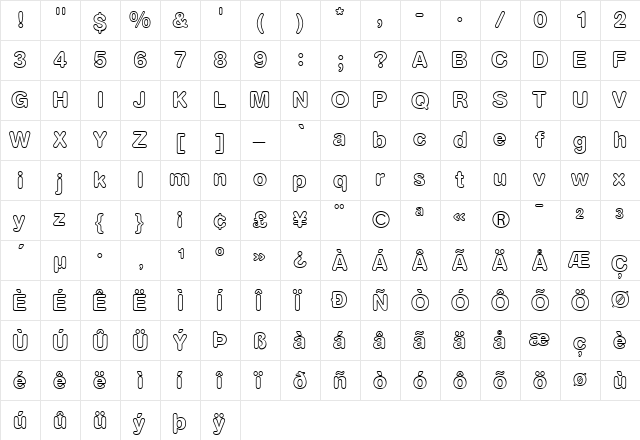
AGRoundedBoldOutline-Book Book
Design Context for AGRoundedBoldOutline-Book Typeface
AGRoundedBoldOutline-Book is built around its visual character rather than neutral utility — its distinctive forms are designed to make an impression at display sizes. The heavy weight commands attention and anchors typographic hierarchies.
Font Pairing: Pair with a clean neutral sans-serif for body copy to let AGRoundedBoldOutline-Book's character lead without overwhelming the composition.
Pro Tip: Treat AGRoundedBoldOutline-Book as the centrepiece of your typographic hierarchy. One strong heading set in a decorative face can carry an entire layout.